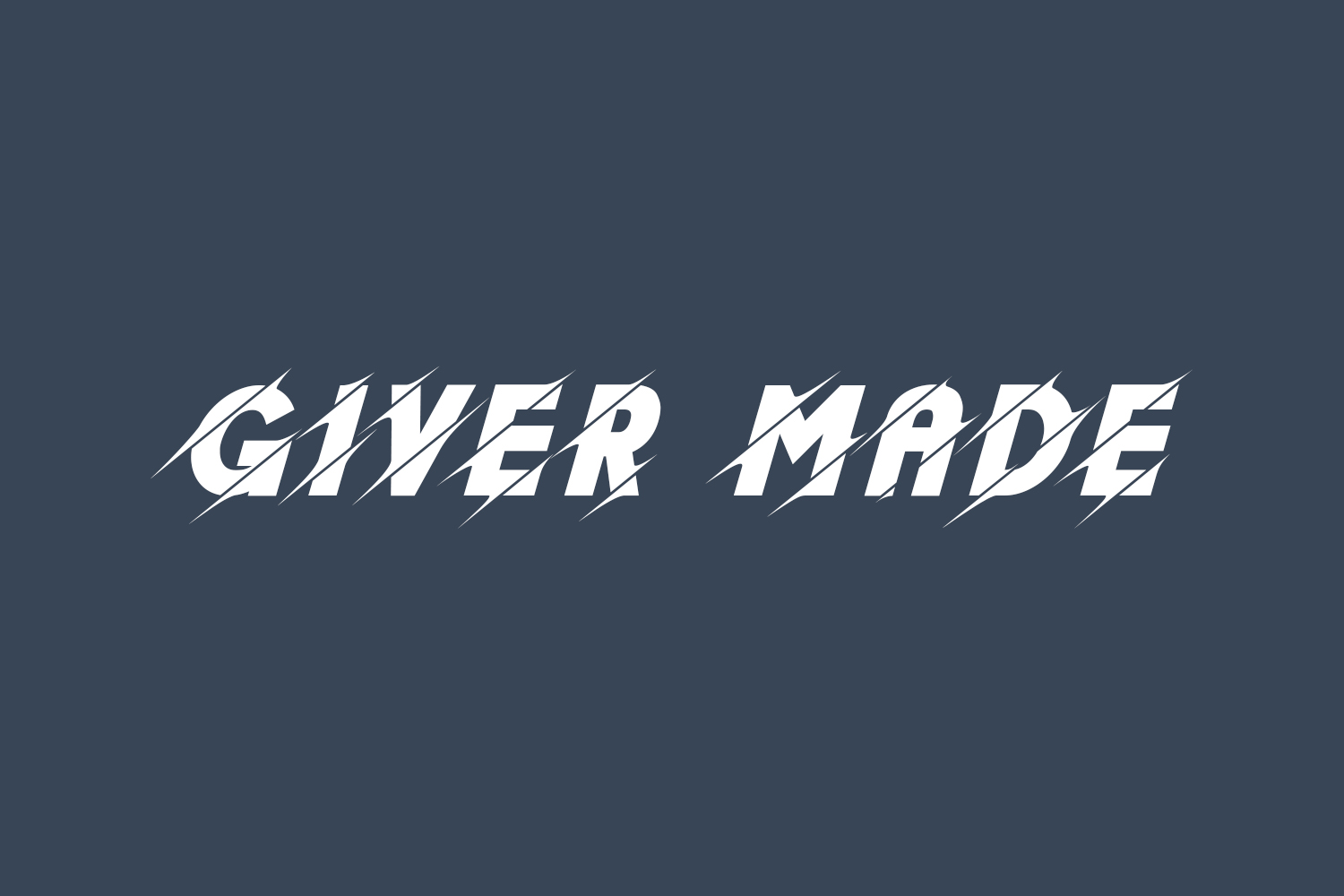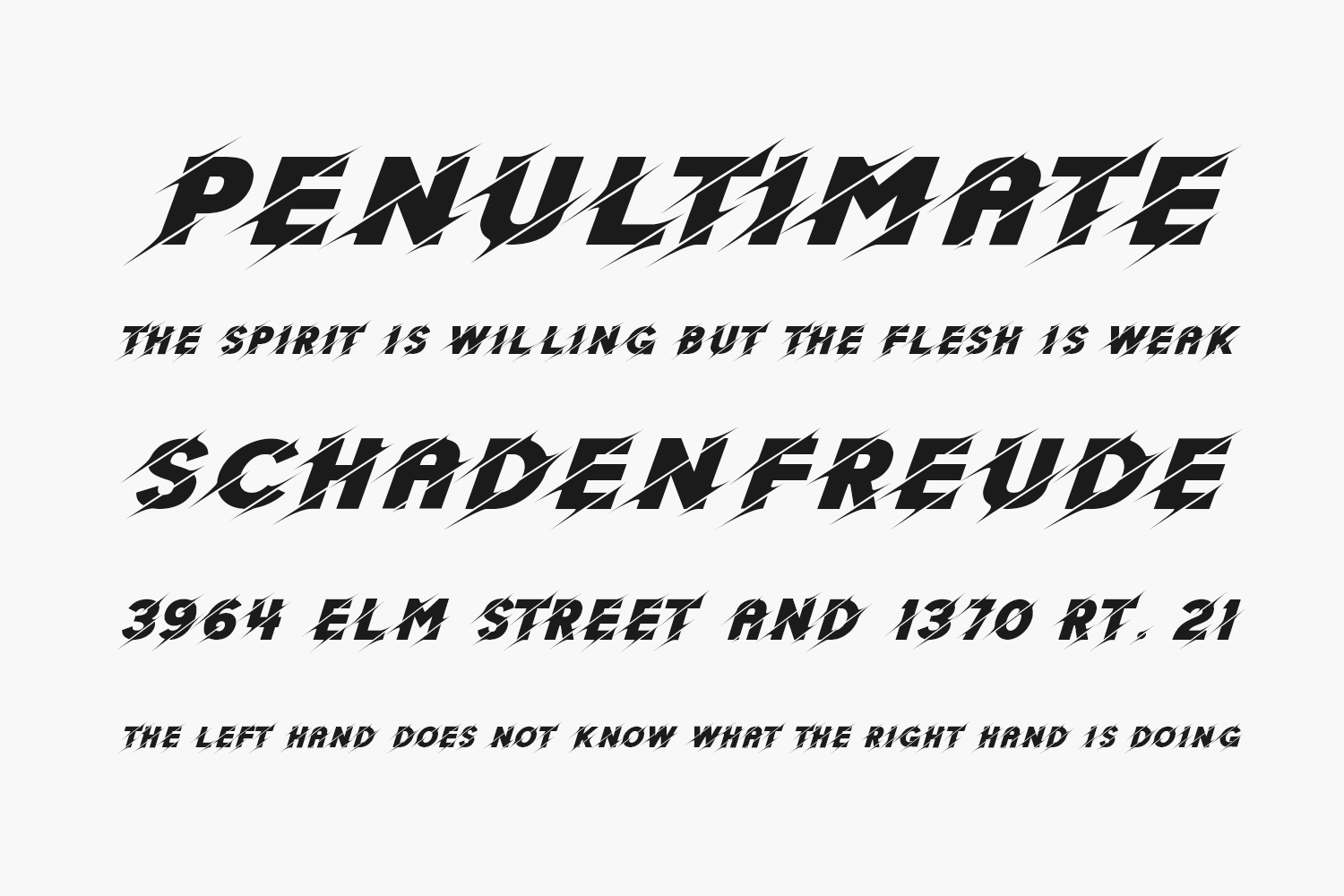
Giver Made Free Font is a cool, bold and sporty display font. It will elevate a wide range of crafting ideas, from cards, to branding, labels and much more. Giver Made Free Font is free for personal use only. Please purchase the full version for commercial use.